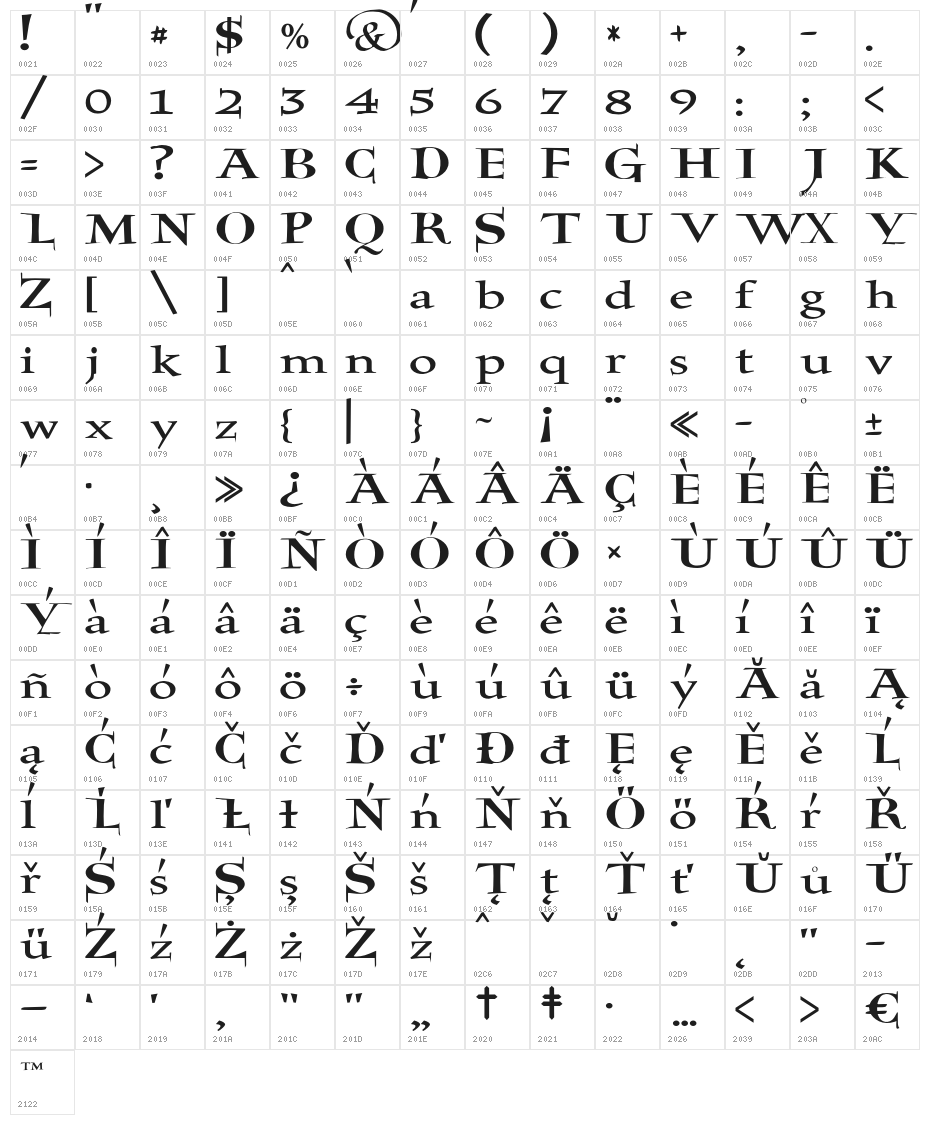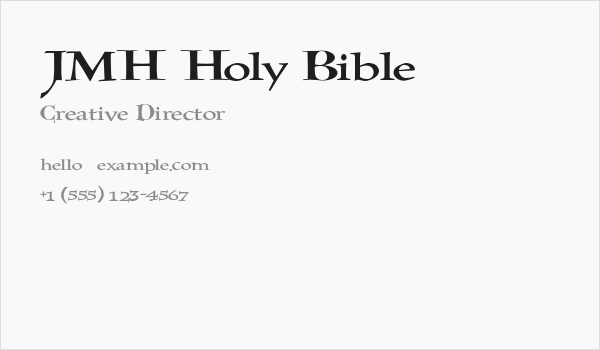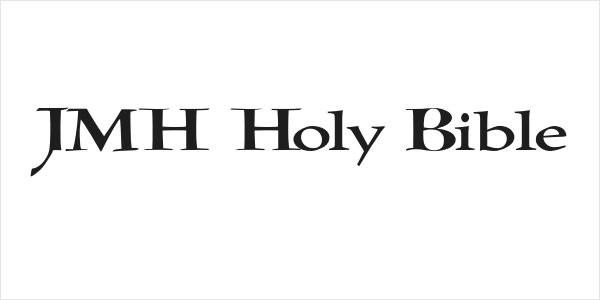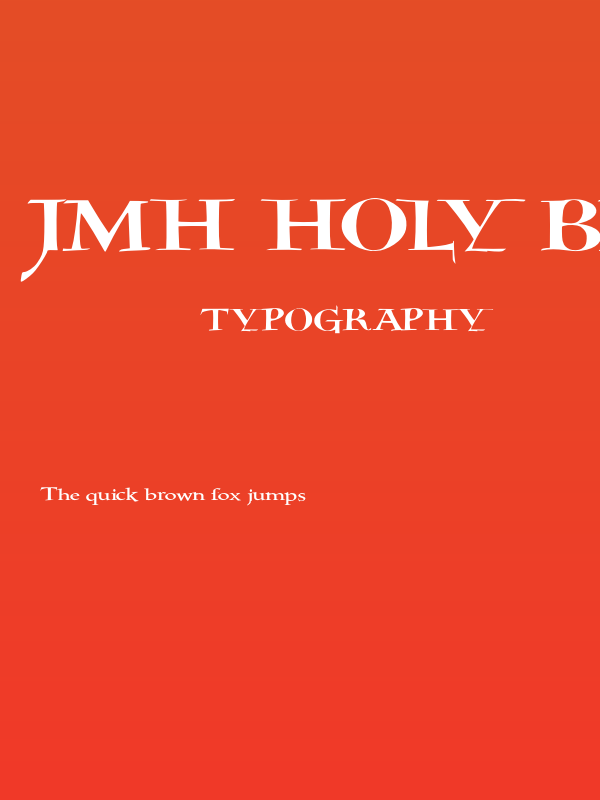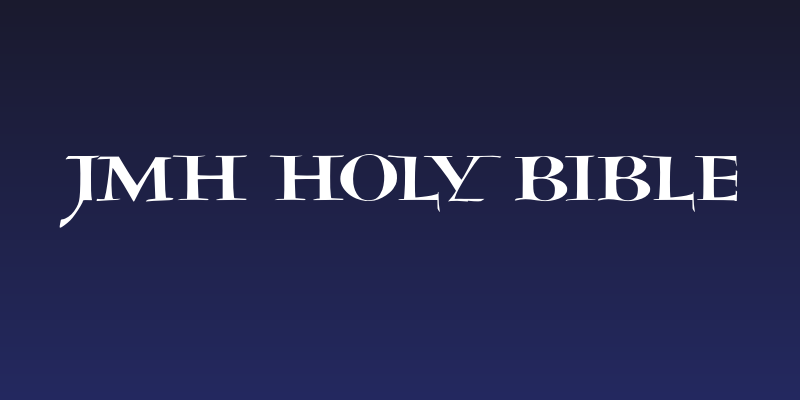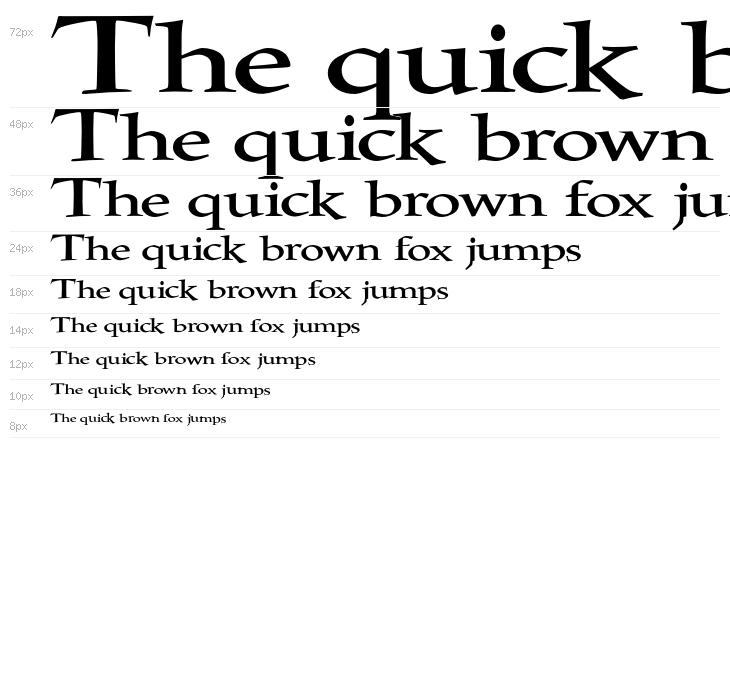
JMH Holy Bible Font
JMH Holy Bible Description
This font features a classic serif style with a distinctive and elegant appearance. The uppercase letters are bold and commanding, with sharp serifs and a slight curvature that adds a touch of sophistication. The lowercase letters maintain a consistent style, offering a harmonious blend with the uppercase. Numbers are clear and legible, with a traditional design that complements the overall aesthetic. Special characters are crafted with attention to detail, enhancing the font's versatility. The font's design is reminiscent of historical and traditional typography, making it suitable for projects that require a timeless and authoritative look.
| Use Case | Headlines, Logos, Book covers |
| Proposed Projects | Ideal for book covers, formal invitations, historical documents, and branding that requires a classic touch. |